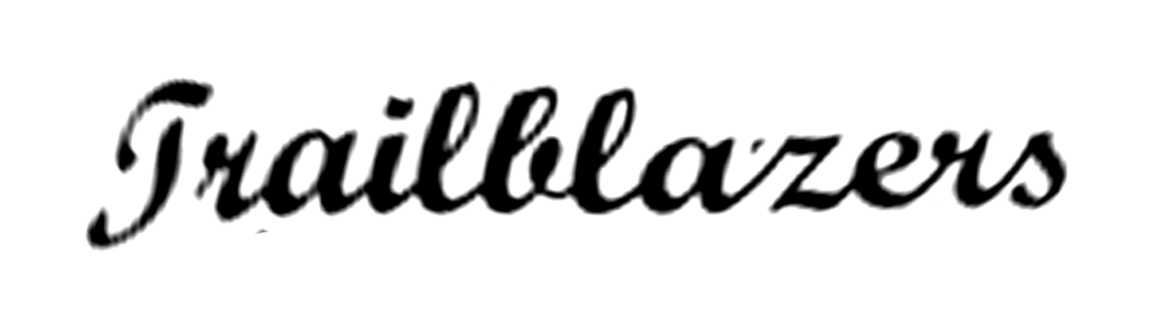
Help with this script font from a high school logo
Looking for more information about this script font from a local high school. The original had a very extreme arch affect applied so this was the best attempt to straighten/flatten it.
Monotype Script Bold